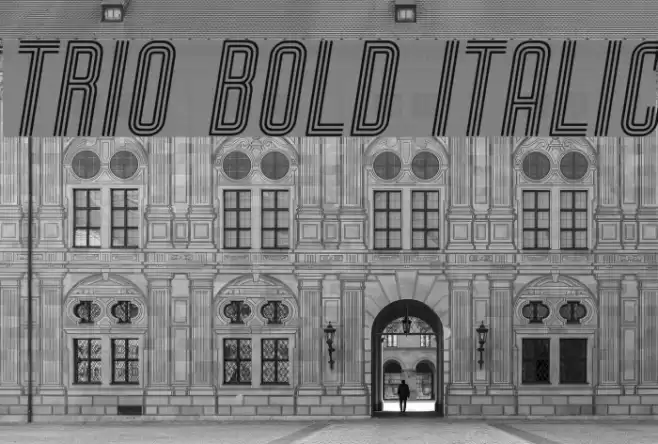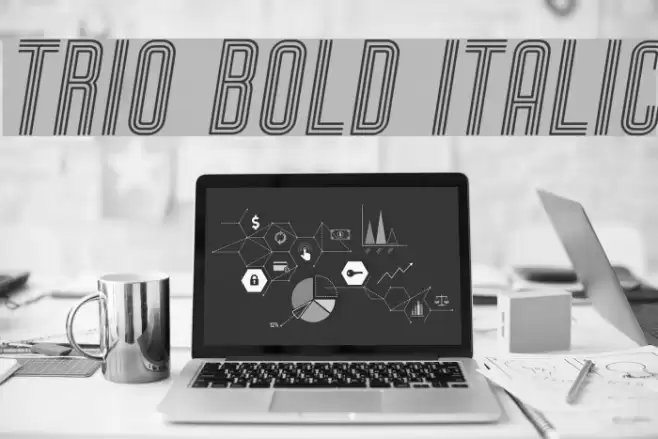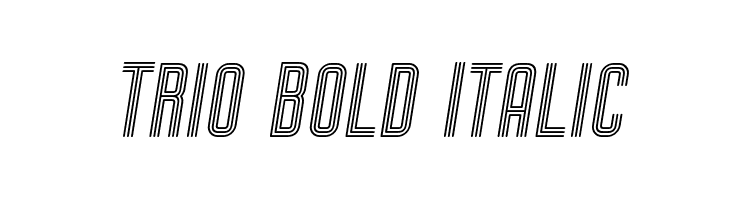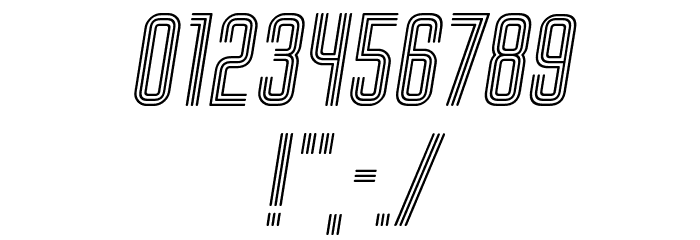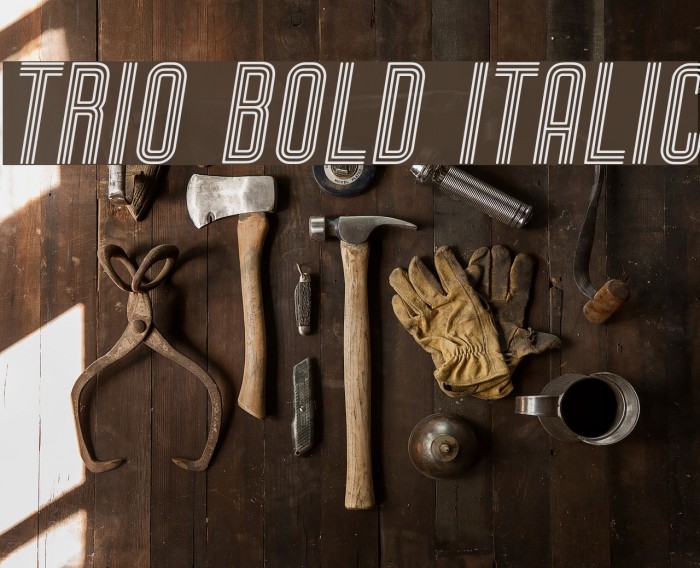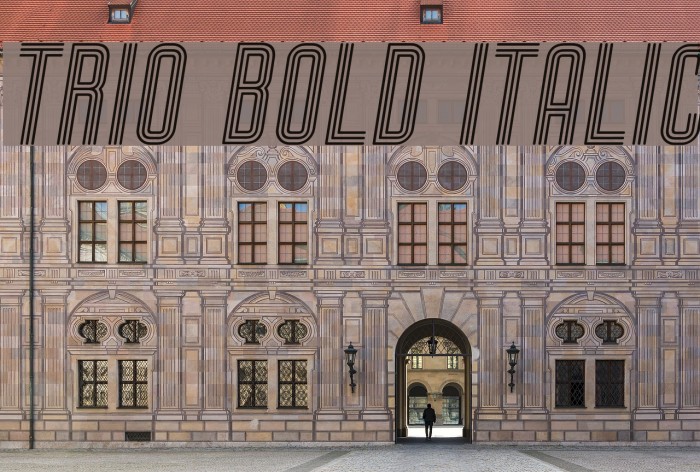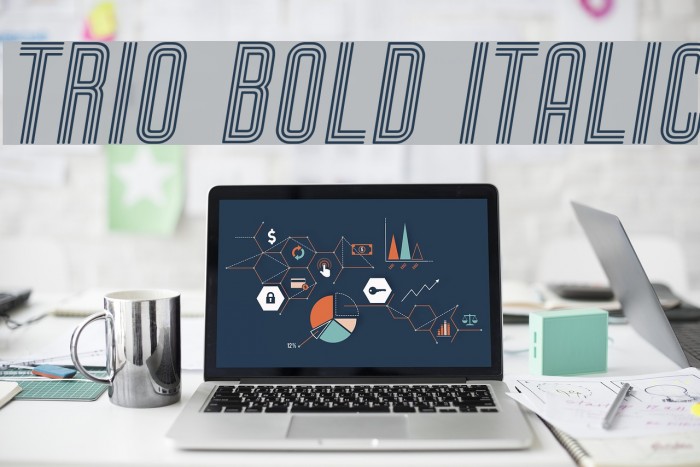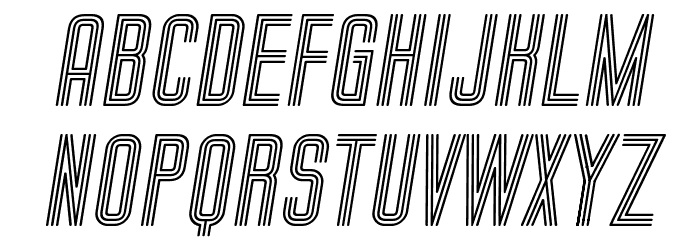
Trio Bold Italic Font
Trio Bold Italic Description
This font features a bold and italicized style with a distinct three-line pattern that gives it a dynamic and modern appearance. The uppercase and lowercase letters maintain a consistent width, creating a uniform look across the alphabet. The numbers and special characters follow the same design, ensuring cohesion throughout. The font's unique triple-line structure adds depth and a sense of movement, making it stand out in any design project. Its geometric and linear qualities make it suitable for contemporary and futuristic themes.
A bold, italicized font with a unique triple-line design, perfect for modern projects from Uncategorized fonts.
- Proposed Projects: Ideal for branding, posters, headlines, and any design requiring a modern and dynamic touch.